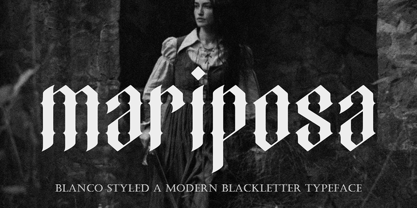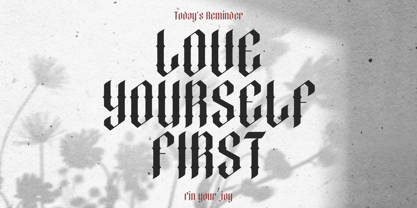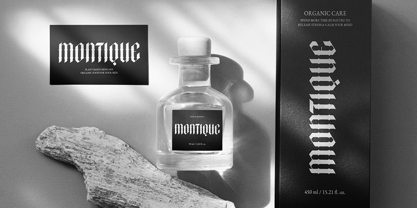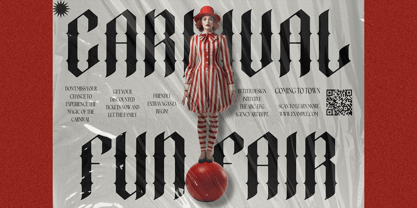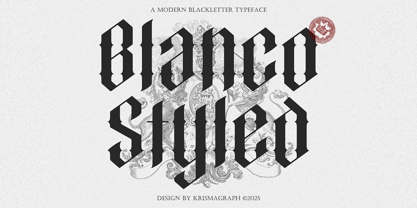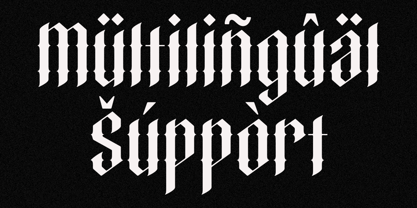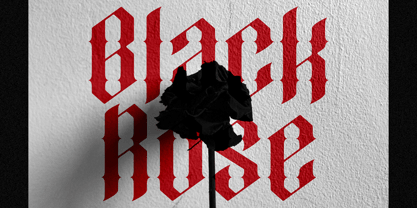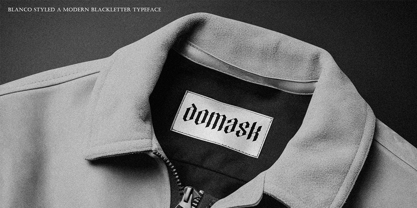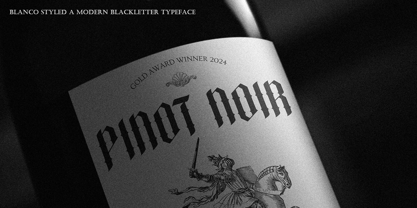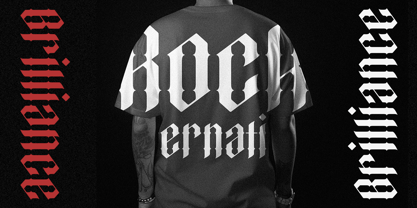
Blanco Styled
Blanco Styled – A Modern Blackletter Typeface
Introducing Blanco Styled, a bold and modern take on traditional blackletter typography. Designed with a unique blend of sharp gothic edges and contemporary elegance, this typeface is perfect for those seeking to make a striking statement in their designs.
With its commanding presence and intricate character details, Blanco Styled is ideal for branding, tattoo designs, packaging, music artwork, apparel, posters, and editorial headlines. Whether you're crafting a modern gothic aesthetic or channeling medieval vibes with a fresh twist, this typeface brings heritage and modernity together in perfect harmony.
Blanco Styled includes uppercase characters and is built for high-impact typographic compositions. The font also features a textured background engraving that adds a historical and vintage touch to your presentations.
Key Features:
• Modern blackletter style
• Strong vertical emphasis and sharp angular forms
• Perfect for branding, apparel, posters, logos & more
• High-contrast and highly legible
• Uppercase & lowercase letters
• Number & punctuations
• Multilingul Support